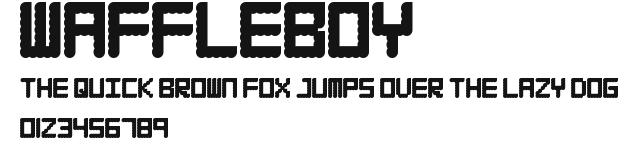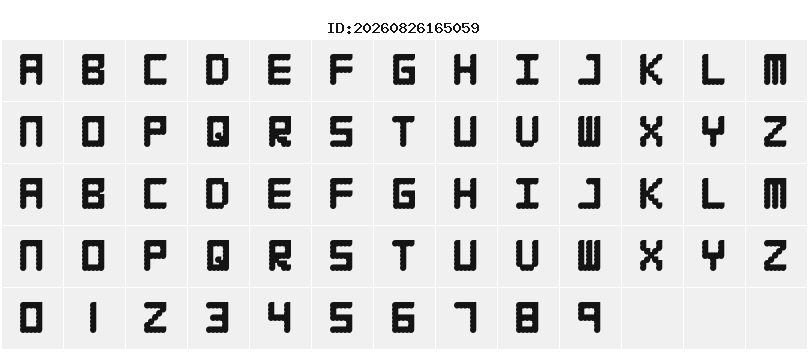
• Font Name: WAFFLEBOY
• Full Font Name: WAFFLEBOY Regular
• Designer: GeronimoFonts
• Description: ‚ÄúWAFFLEBOY‚Äù was built with FontStruct
About WAFFLEBOY.ttf
WAFFLEBOY.ttf is a modern, elegant sans-serif font designed for ultimate readability and visual harmony. Perfect for branding, headlines, web design, and print materials.